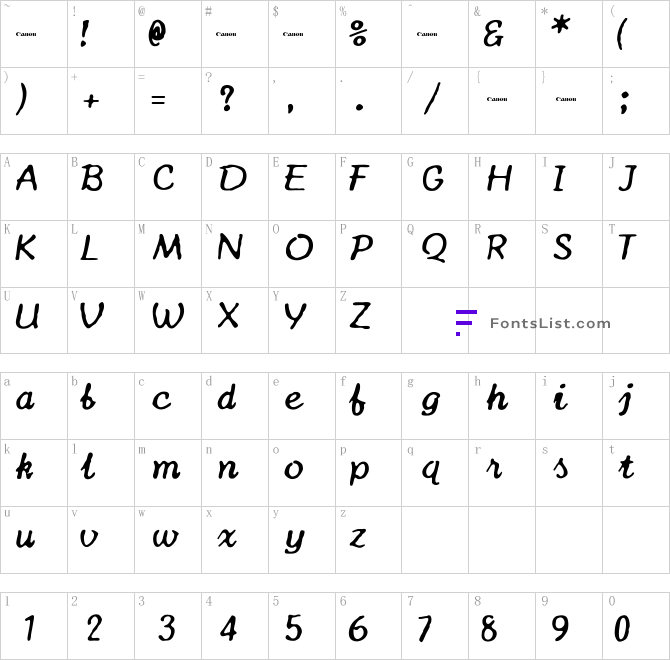
- Font Name:Canon TypeStar 210
Canon-TypeStar-210.ttf is a very beautiful artistic font, Canon-TypeStar-210.ttf is widely used in the design and printing of various books and pictures,Canon-TypeStar-210.ttf has a strong visual impact,Canon-TypeStar-210.ttf is a commonly used font in newspapers, magazines and books, and is used in posters, e-commerce Poster design, store design, logo design, font design and other fields.Canon-TypeStar-210.